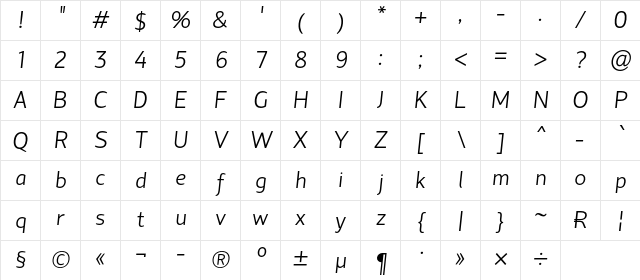
Hattori Hanzo Light Italic
Foundry: Roman Shamin & Jovanny Lemonad
Designer: Roman Shamin
Design Context for Hattori Hanzo
Hattori Hanzo is a composed and adaptable typeface that performs quietly and consistently across a wide range of design contexts. The slanted form adds forward momentum and visual energy. Its slender proportions lend an understated elegance to any composition.
Pro Tip: Use Hattori Hanzo for emphasis, pull quotes, and subheadings where its slanted energy can add rhythm to the layout.